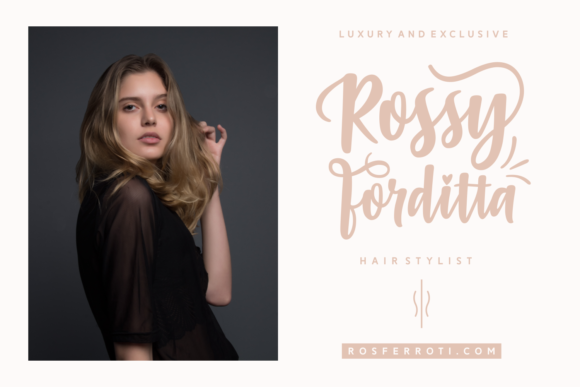
Gabelisa Script Font
A clean logotype script. offers beautiful typographic harmony for a diversity of design projects, including logos & branding, wedding designs, and more. Introducing Gabelisa Font. Gabelisa is a jaw-droppingly gorgeous display font that will give your designs a luxurious hand-lettered feel. This swashy, delicate script font comes with tons of stylistic alternates so you can create compelling and unique designs no matter the project at hand. This is a versatile font that works in modern and throwback designs!